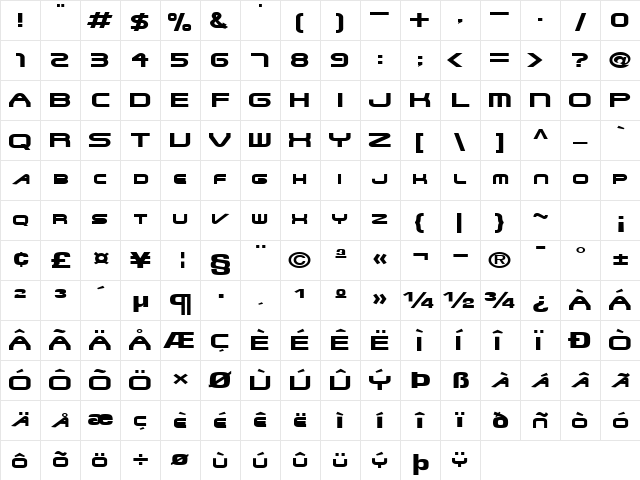
PeoplesType121 Regular Free Font
PeoplesType121 Regular
Design Context for PeoplesType121
PeoplesType121 is a composed and adaptable typeface that performs quietly and consistently across a wide range of design contexts.